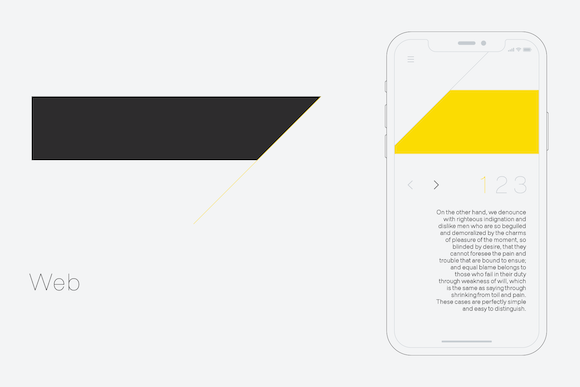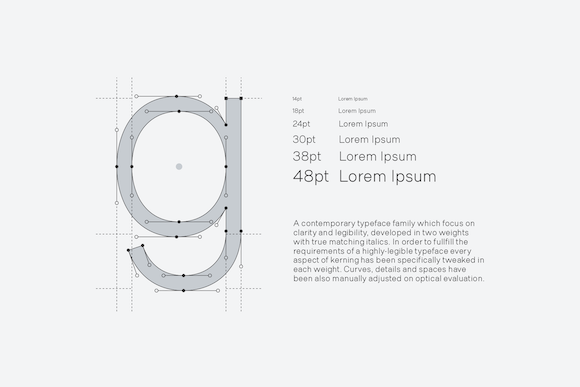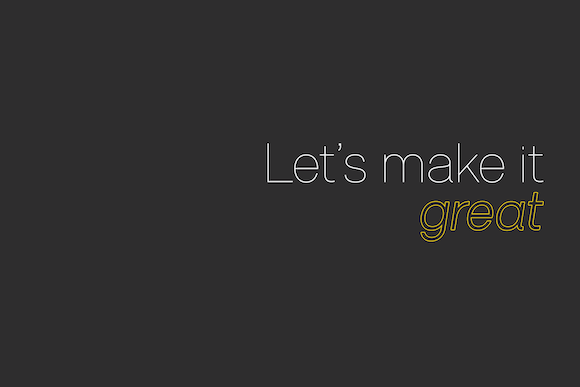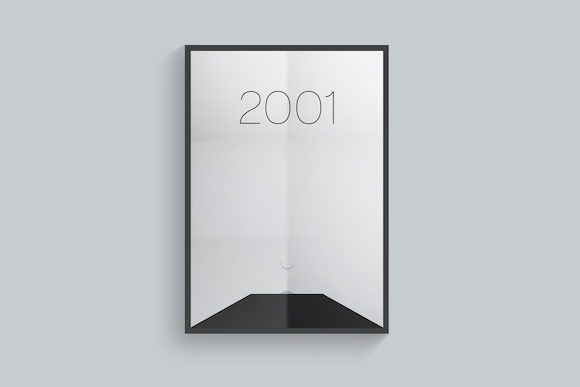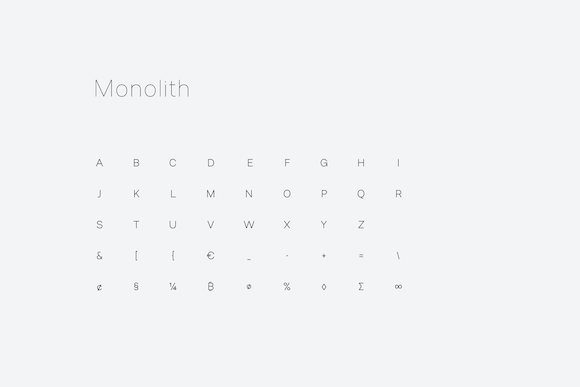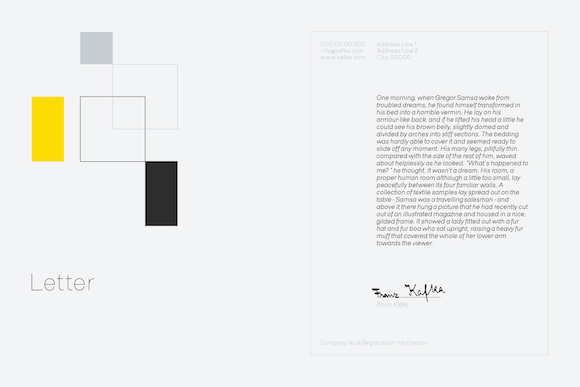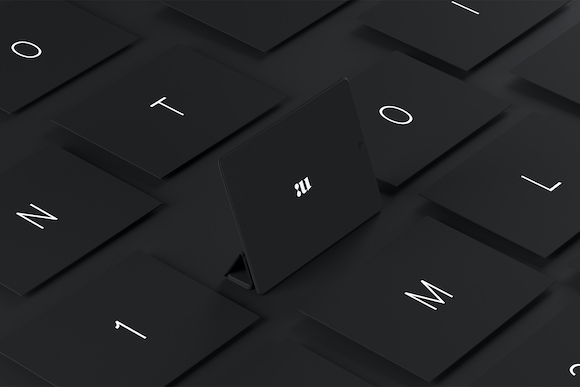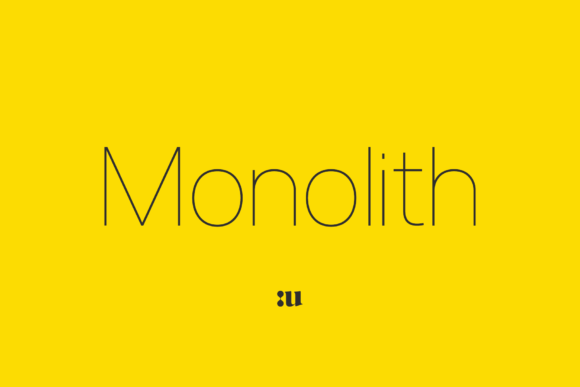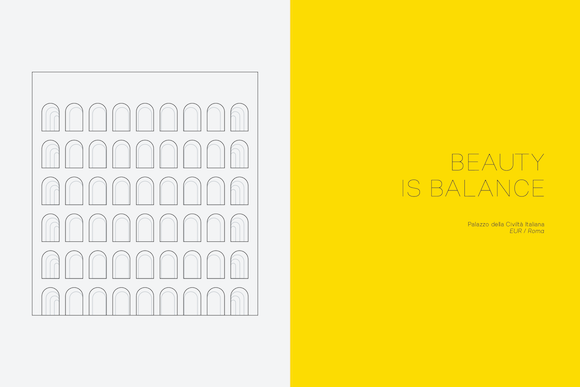
HomeSans Serif FontsMonolith Font Sans Serif Fonts Monolith Font FacebookXPinterestWhatsApp Monolith Font 1 of 10 About Monolith Font Monolith is a contemporary and light sans serif font with an incredibly unique approach to lettering. It will take any design project to the next level. DOWNLOAD NOW People also explored Charles Atlas Butterfly Font Booming Font Mountain Range Font Claiborne Font Biscuits Font Ramblin Font Reality Sunday Light Font Banttany Font 324 0 TagsMonolith Font Previous articleRollenzo FontNext articleModern Society Font LEAVE A REPLY Cancel reply Comment: Please enter your comment! Name:* Please enter your name here Email:* You have entered an incorrect email address! Please enter your email address here Website: Save my name, email, and website in this browser for the next time I comment. Personal Use Free Zephan Personal Use Free Read more about this font Evelyne Personal Use Free Read more about this font Pan Pizza Personal Use Free Read more about this font Welliana Personal Use Free Read more about this font BLOG How to Cut Any Font on Cricut: Convert a Font to SVG (Free) Turn any font into a clean SVG so it cuts crisp on Cricut - a quick 3-step workflow using a free font-to-SVG tool. The 10 Best Handwriting Fonts to Add Personality to Your Designs How to Install and Use Fonts on Windows, macOS, and Web Projects Best Fonts for YouTube Videos: Make Your Thumbnails Stand Out